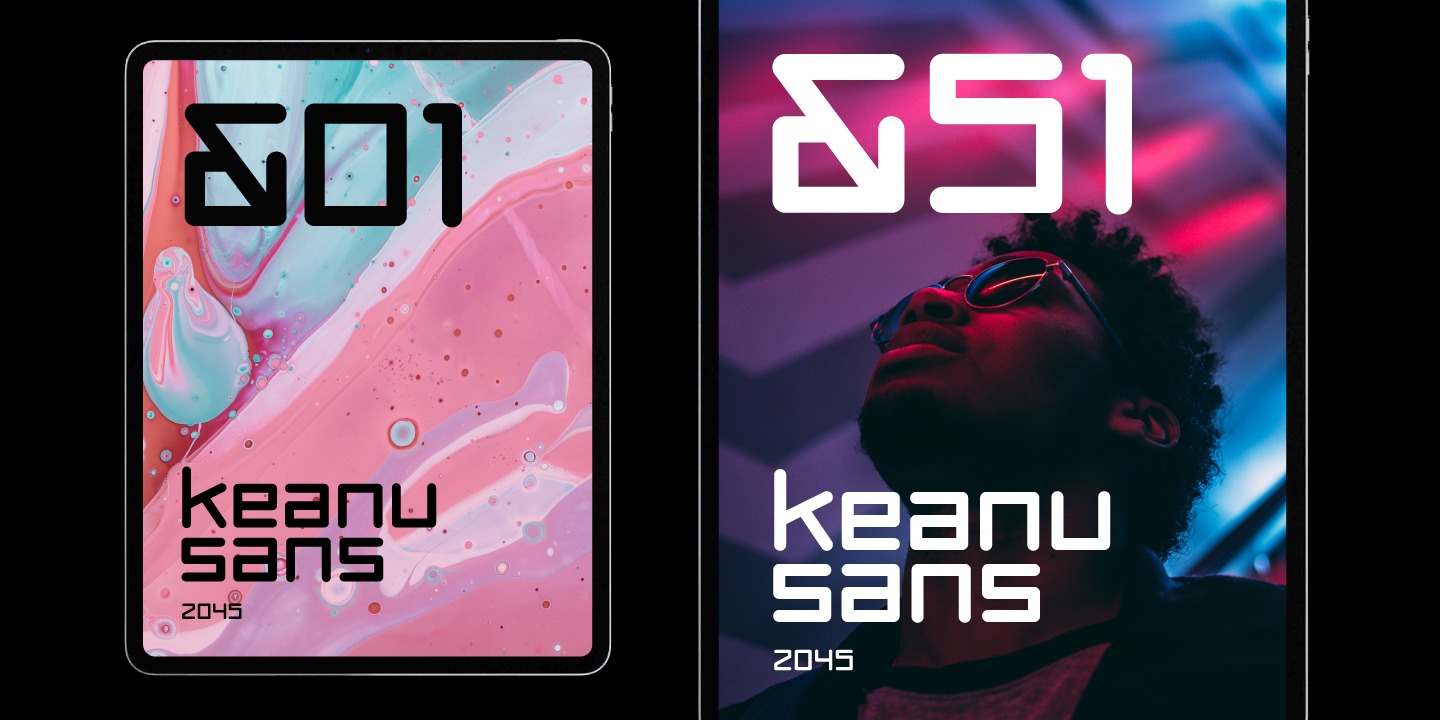
Keanu Font is a sleek and modern sans-serif typeface, designed with a focus on contemporary aesthetics and exceptional readability. Its clean lines, balanced proportions, and often subtle geometric touches make it an outstanding choice for a wide variety of cutting-edge design projects. Imagine it perfect for innovative tech company branding, minimalist website interfaces, engaging mobile app designs, professional corporate communications, refined editorial layouts, and high-end product packaging. This font excels in environments where precision, functionality, and a polished visual language are paramount. It ensures your message is not only visually appealing but also effortlessly digestible, making it a powerful tool for effective and streamlined communication across all digital and print platforms.
What makes Keanu Font truly exciting is its intelligent simplicity and remarkable adaptability. It manages to be distinct enough to give your designs character, yet neutral enough to function beautifully across diverse applications and various text sizes. The subtle elegance in its letterforms allows it to convey a sense of modern efficiency and understated sophistication. This font doesn't just display text; it enhances the content by providing a clean, unobtrusive canvas that lets your message shine. It's a powerful tool for brands and individuals who value clarity, innovation, and a polished, contemporary image, ensuring their communication is both impactful and aesthetically pleasing. Keanu Font Free Download empowers brands and creatives to project an image of thoughtful design and enduring quality.
The Keanu Font family is typically comprehensive, offering a wide array of weights and styles to ensure maximum versatility for diverse design projects. You'll often find it includes a full spectrum from light or thin to regular, medium, semi-bold, and bold, sometimes extending to ultra-bold or black weights. Corresponding italic styles are also commonly available, providing robust options for typographic hierarchy and emphasis. This extensive family ensures that Keanu Font can adapt seamlessly to any design challenge, from subtle body text to commanding headlines, all while maintaining a consistent and harmonious visual language. Its broad character set usually covers a wide range of Latin characters, numbers, and extensive punctuation, making it suitable for international projects and complex textual layouts.